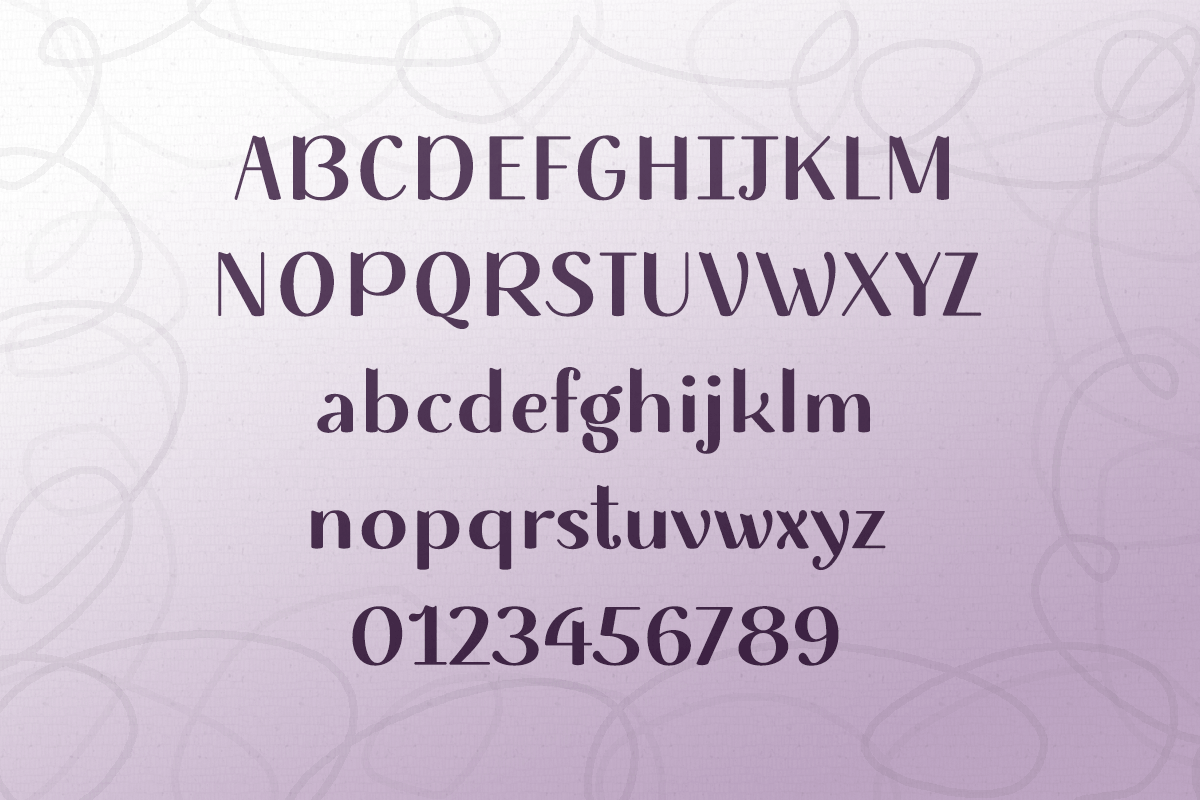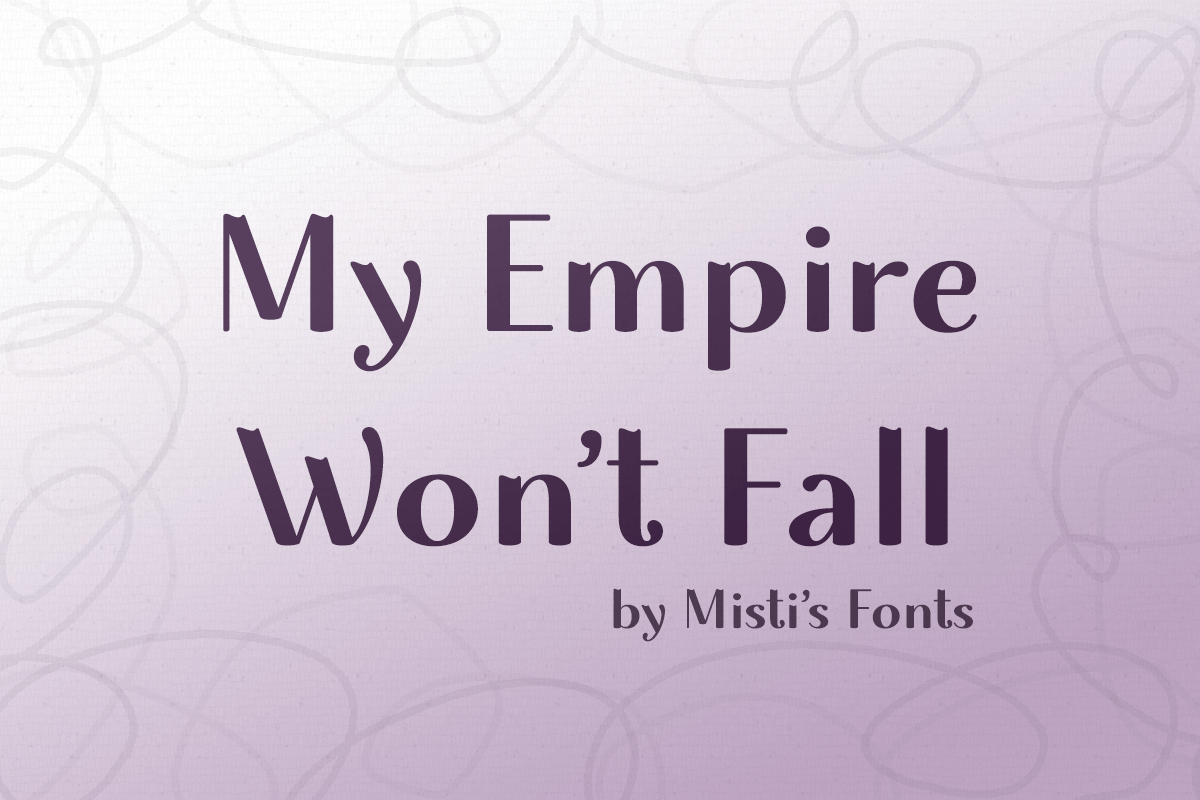
My Empire Wont Fall
My Empire Won’t Fall is a stylish bold sans serif font, carefully handcrafted to become a true favorite. This font will look outstanding in any context, whether it’s being used on busy backgrounds or as a standalone headline!